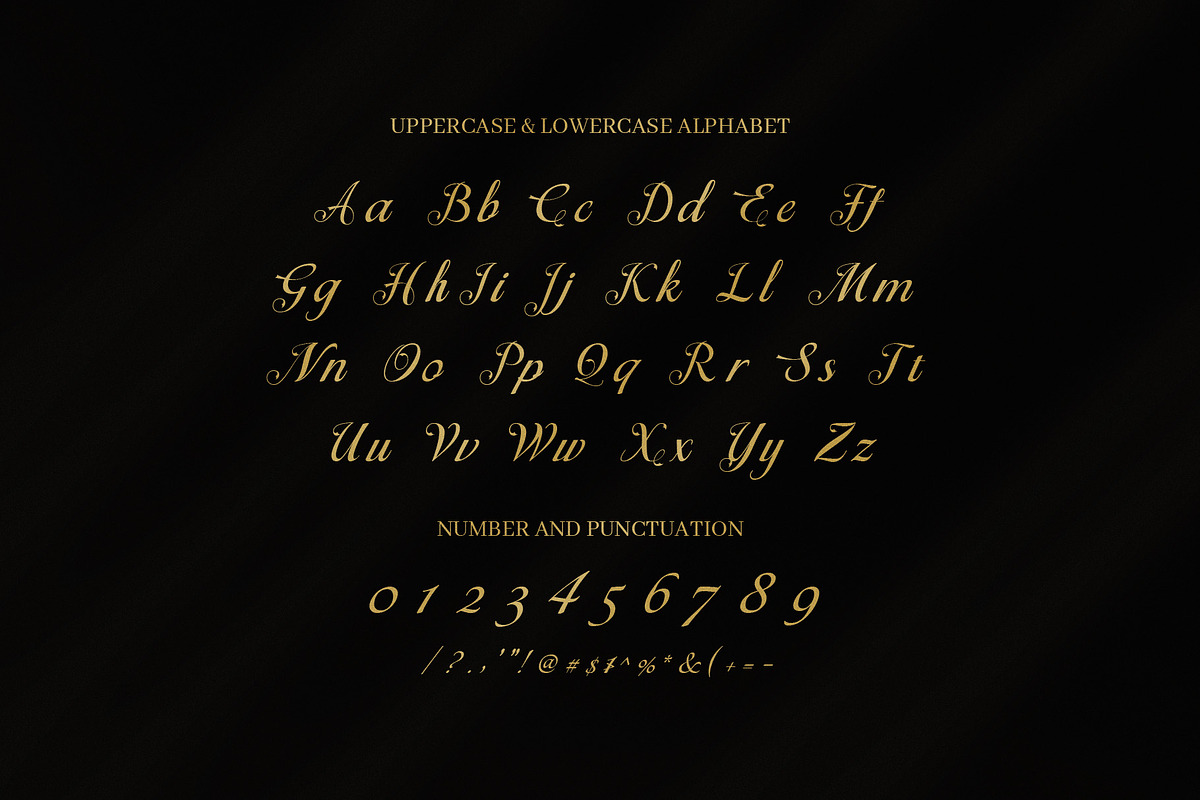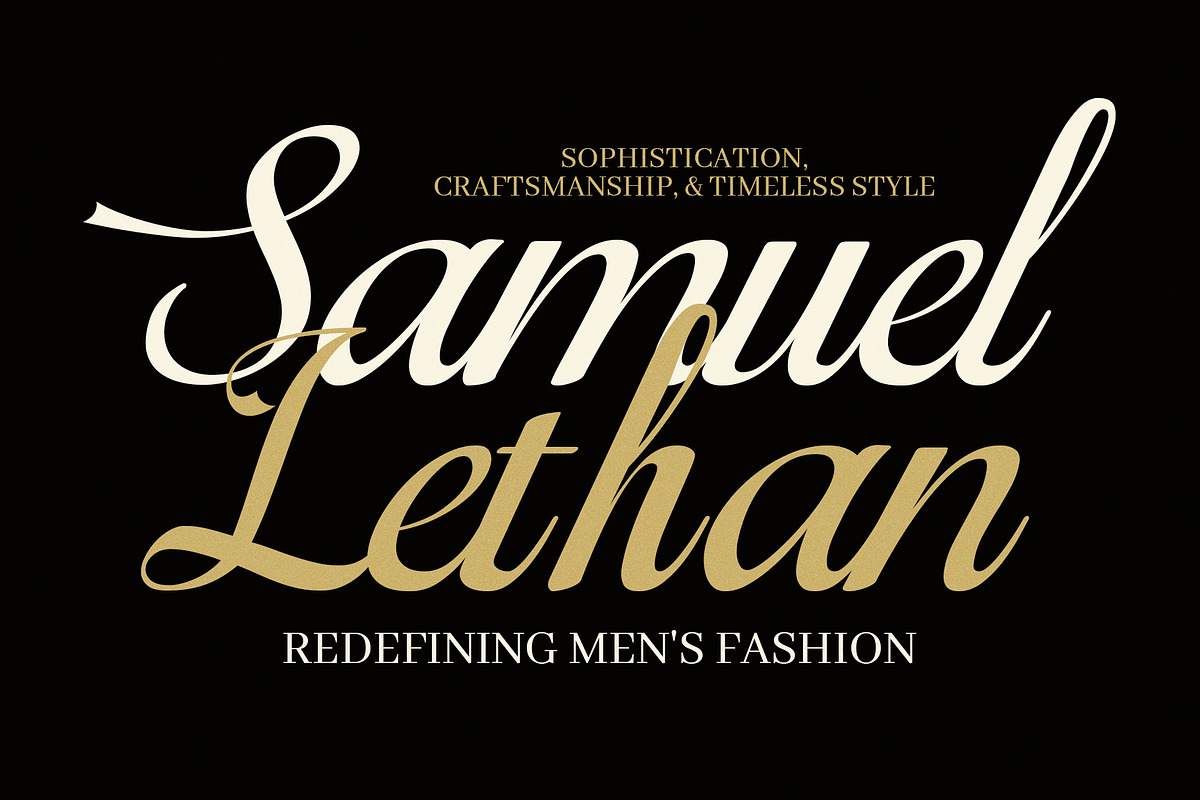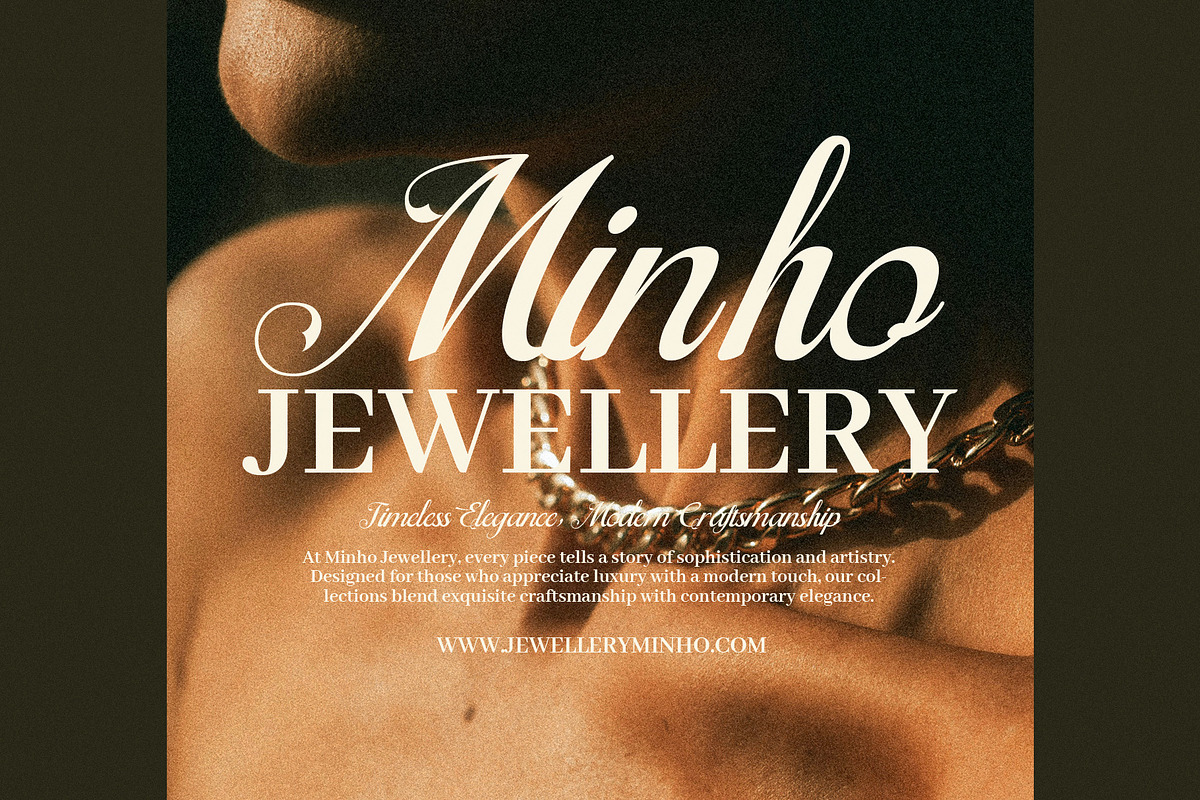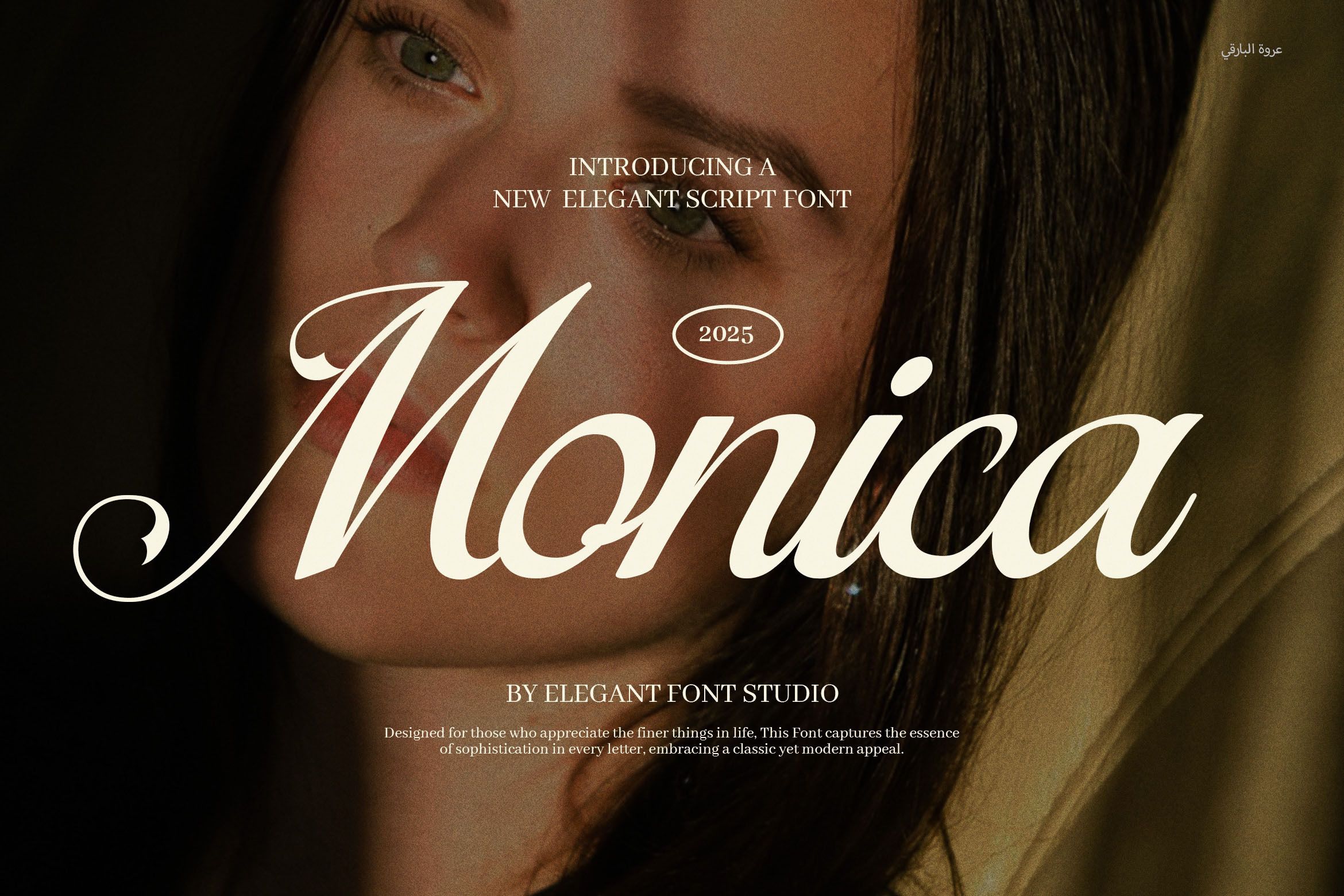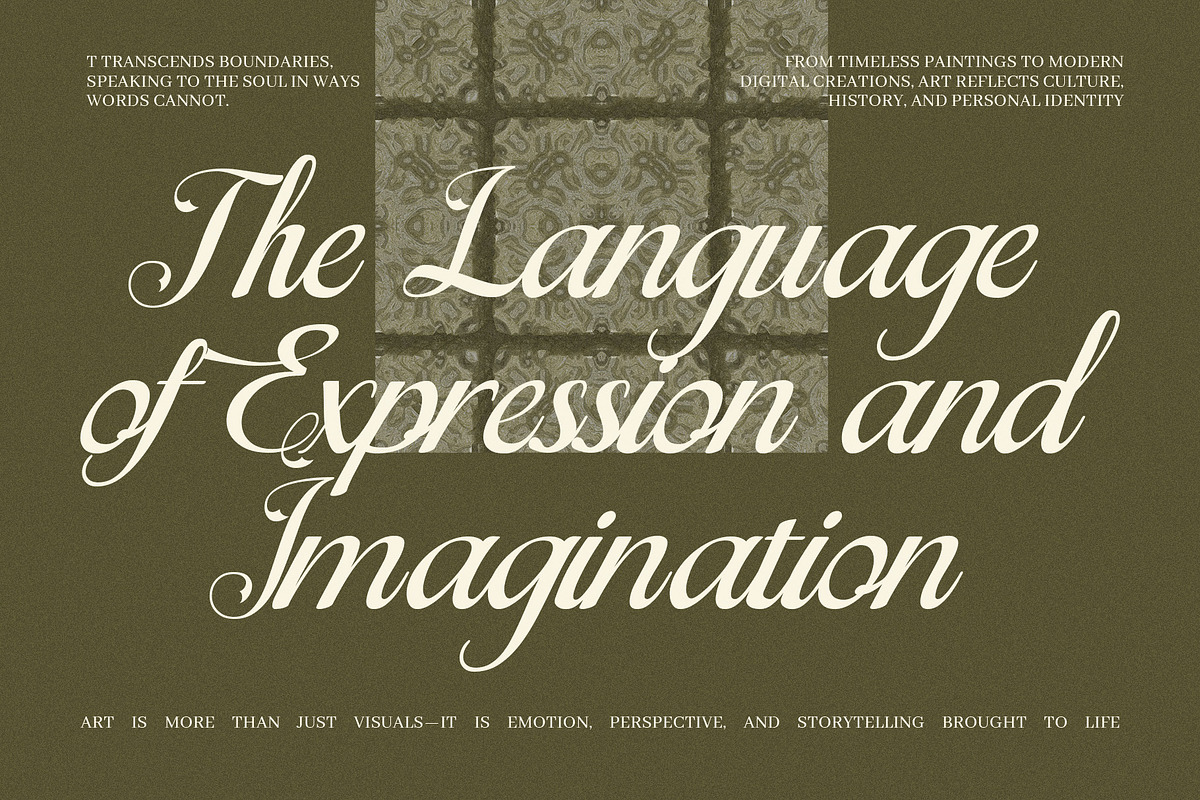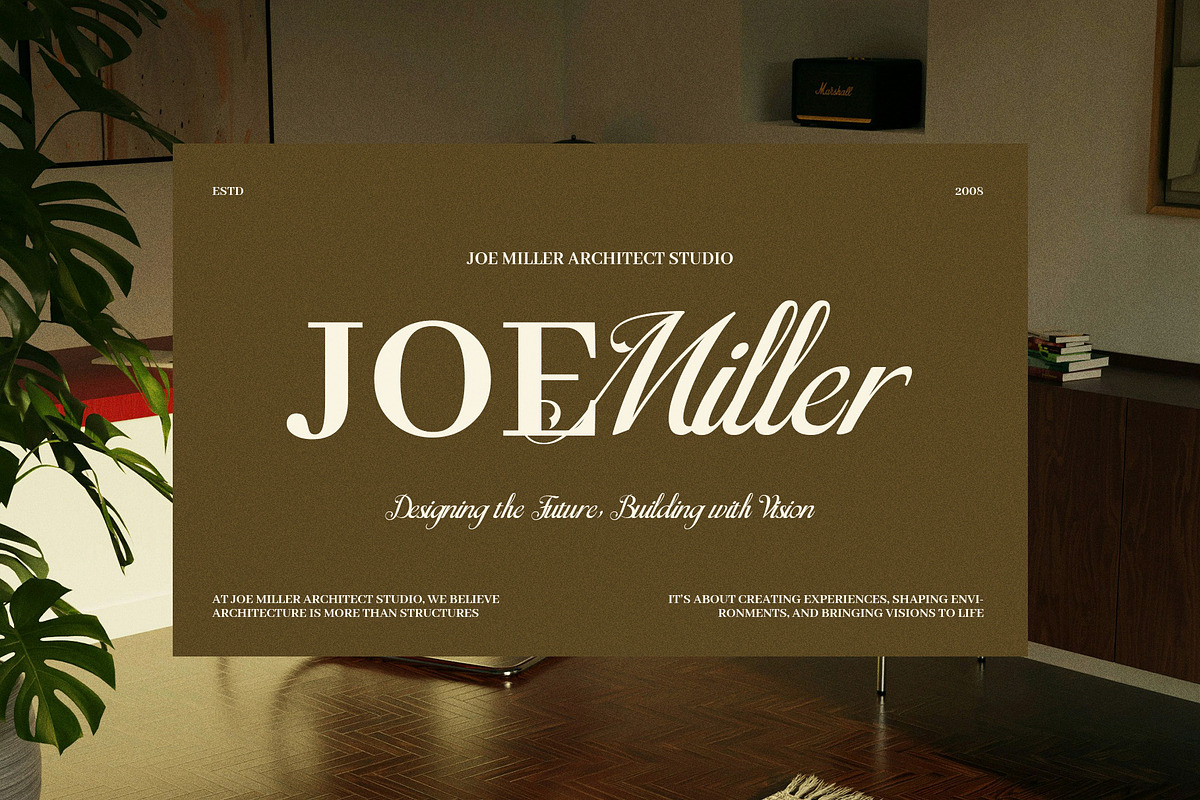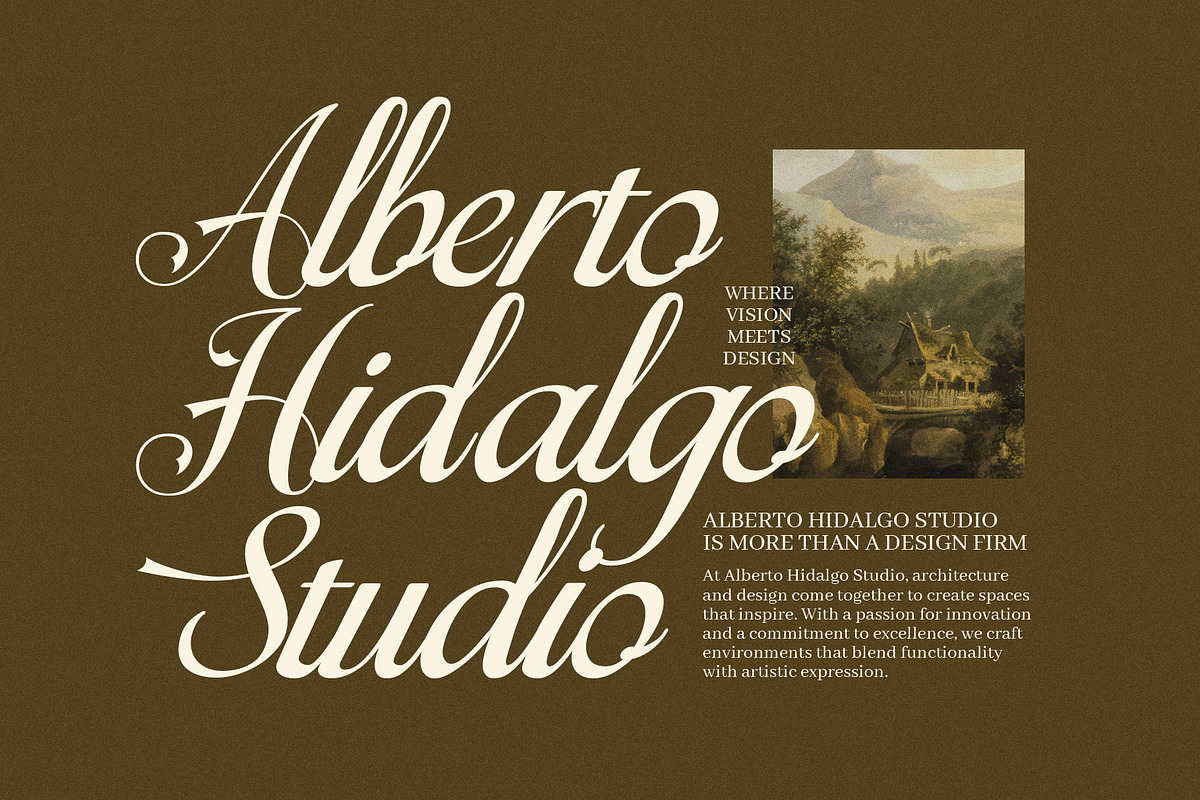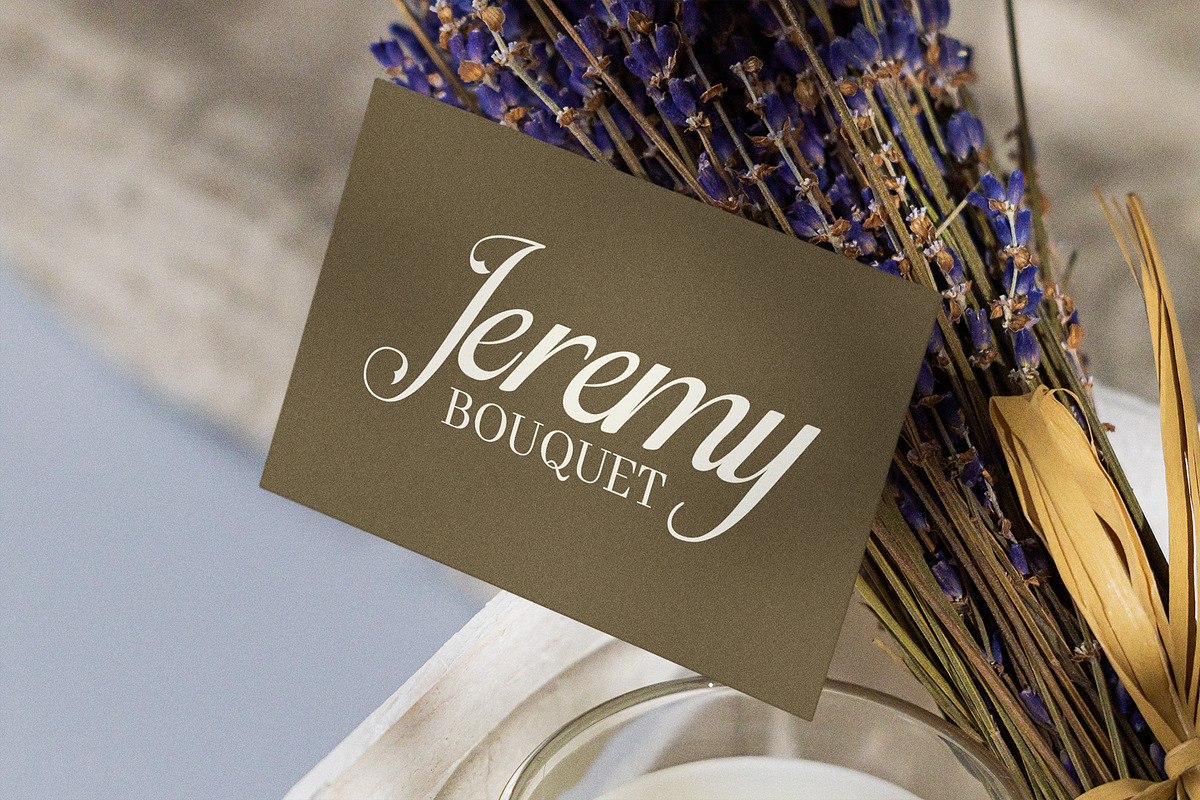
Monica Elegant Script Font
Discover the Monica Elegant Script Font, a beautifully crafted typeface designed to bring timeless elegance and luxury to your creative projects. This elegant script font features graceful curves and delicate calligraphic alternates that add a touch of sophistication to any design. Whether you are creating branding materials, wedding invitations, logos, or magazines, Monica delivers a refined and polished look that makes your work stand out effortlessly.
What makes Monica Elegant Script truly special is its versatility. It includes a variety of ligatures and stylistic alternates, allowing you to customize your text with artistic flair and seamless flow. This font is ideal for projects that demand a luxurious and classy appearance, perfect for premium branding and high-end design needs.
Why Choose Monica Elegant Script?
Elegant and Classy Design: Perfect for luxury brands and upscale projects.
Rich Ligature Features: Smooth connections between letters for natural calligraphy.
Multiple Calligraphy Alternates: Offers creative freedom and variety.
Versatile Usage: Fits perfectly in wedding invitations, logos, business cards, posters, albums, advertisements, magazines, websites, and more.
Highly Readable: Despite its decorative nature, Monica maintains clarity across all sizes.
Supports Branding and Marketing: Elevates your identity with a professional, stylish look.
This font is designed not only for individual creatives but also for large companies that need reliable and elegant typography. With Monica, your brand gains an exclusive, luxurious edge that captures attention and leaves a lasting impression.
Upgrade your design toolkit with Monica Elegant Script today, and enjoy a font that combines beauty, functionality, and luxury seamlessly.